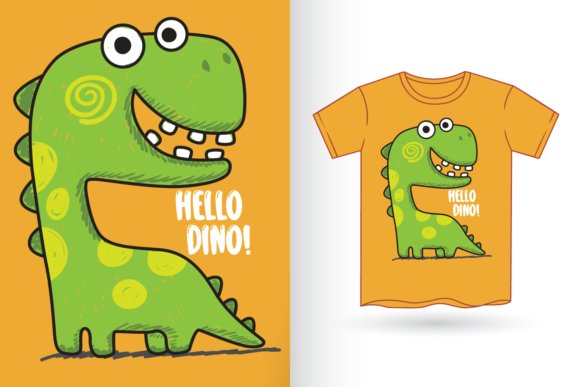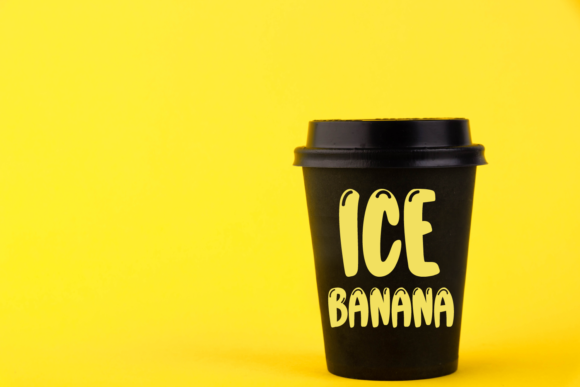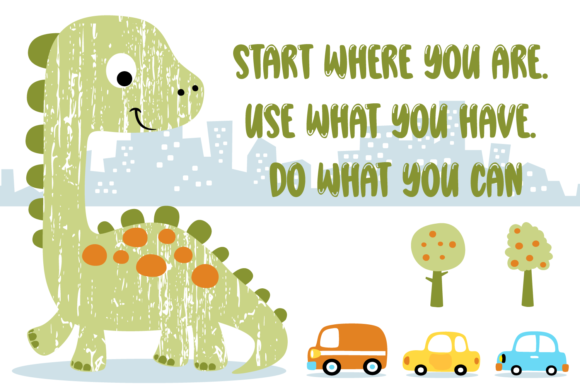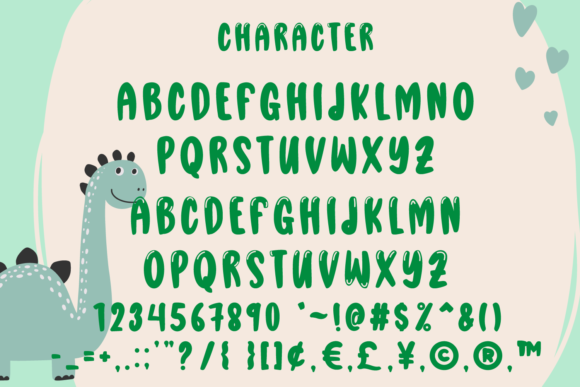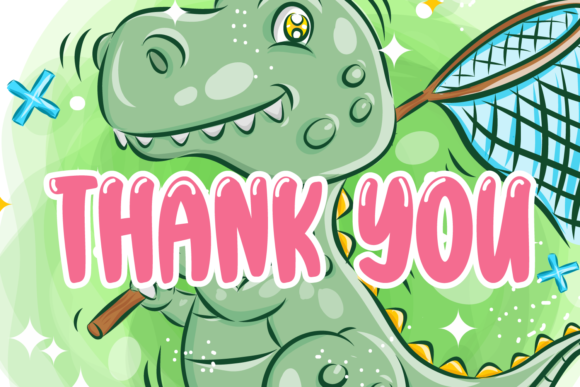
Introduction to Chibi Dinosaur Font
Chibi Dinosaur is a cute and bubbly display font.
It embodies playfulness and authenticity and is the perfect choice for any children activity or school project .